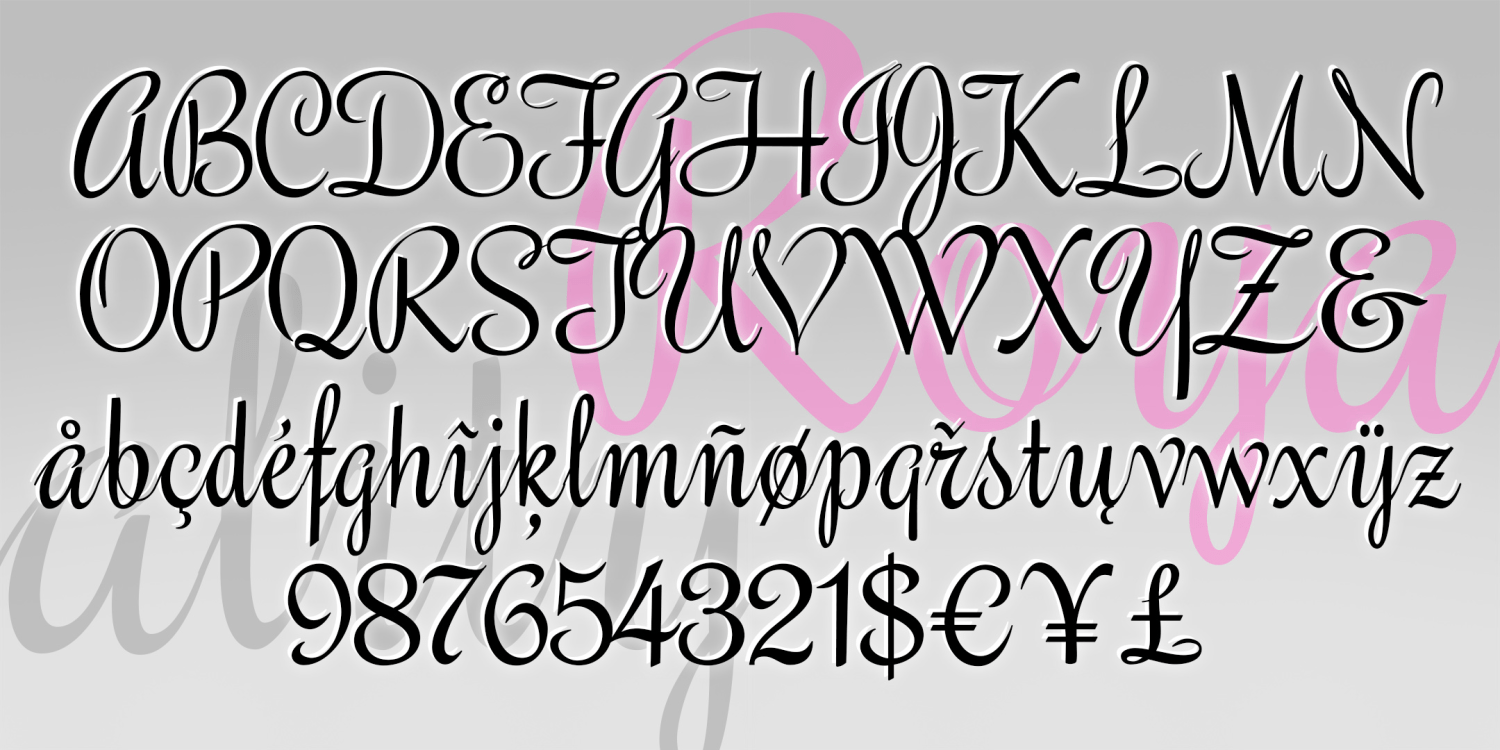
Royality
ROYALITY is a fresh and elegant cursive font. With sharp edges and a light weight, ROYALITY feels like beautiful the pen-drawn calligraphy you might find on a modern royal invitation.
ROYALITY is one of a series of four vertical script fonts, including Scarlet Ribbons, Famous Label and Easter Parade, as seen in the Script Font Identification Guide. It was inspired by an example from 1946 and was released in an earlier form as "Roselyn," named for my mother.
The Royality font family includes 337 glyphs.